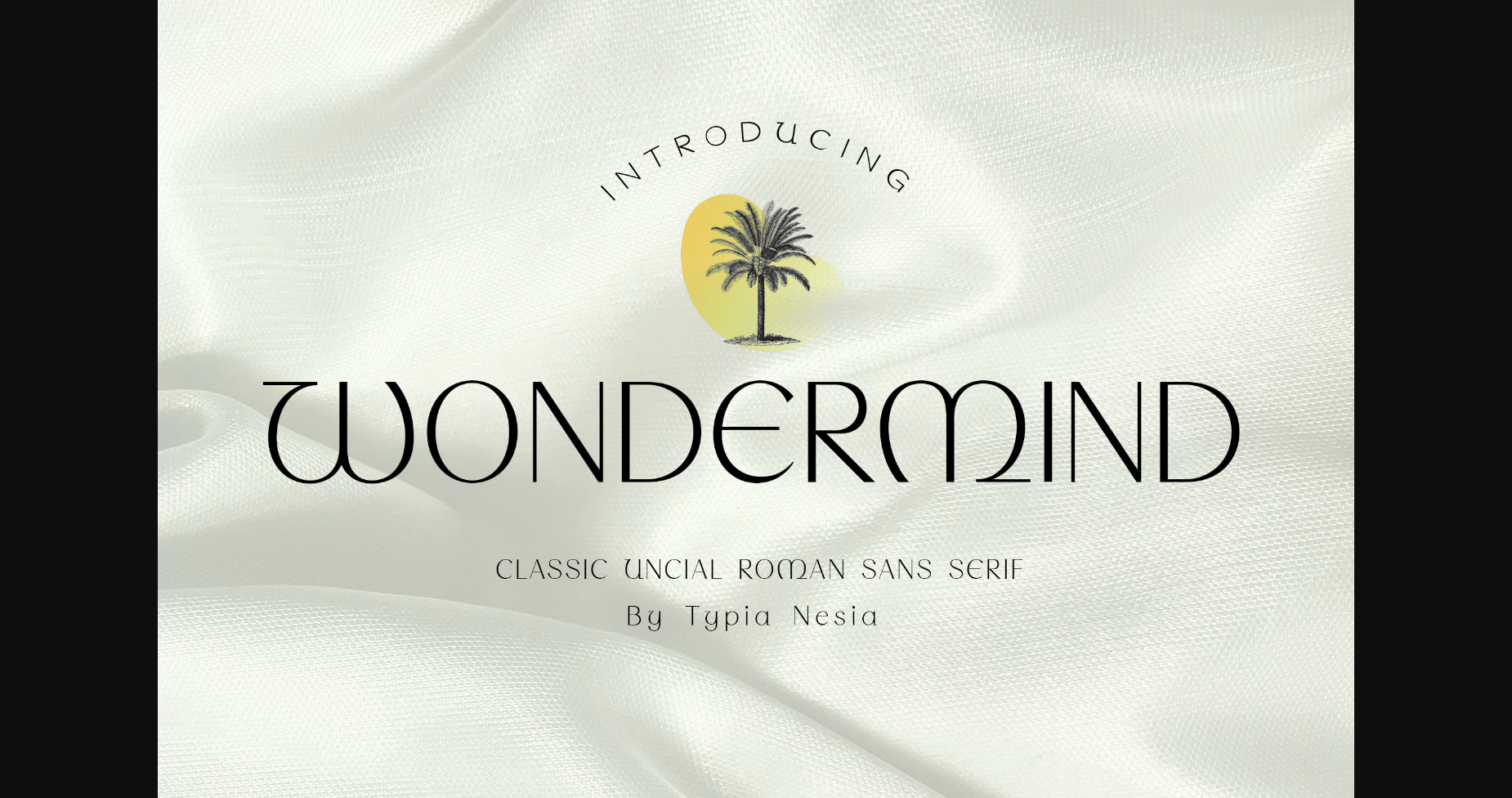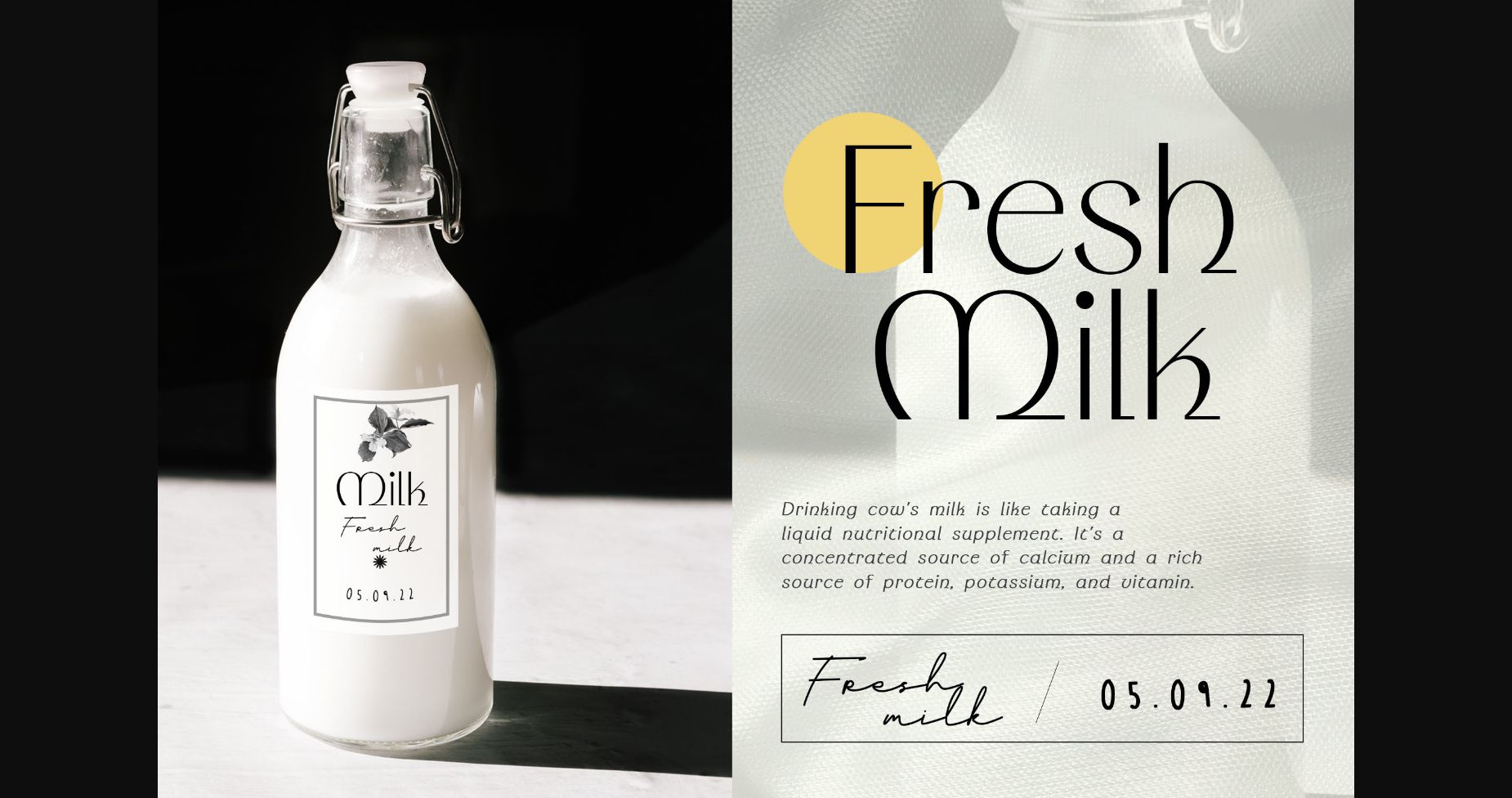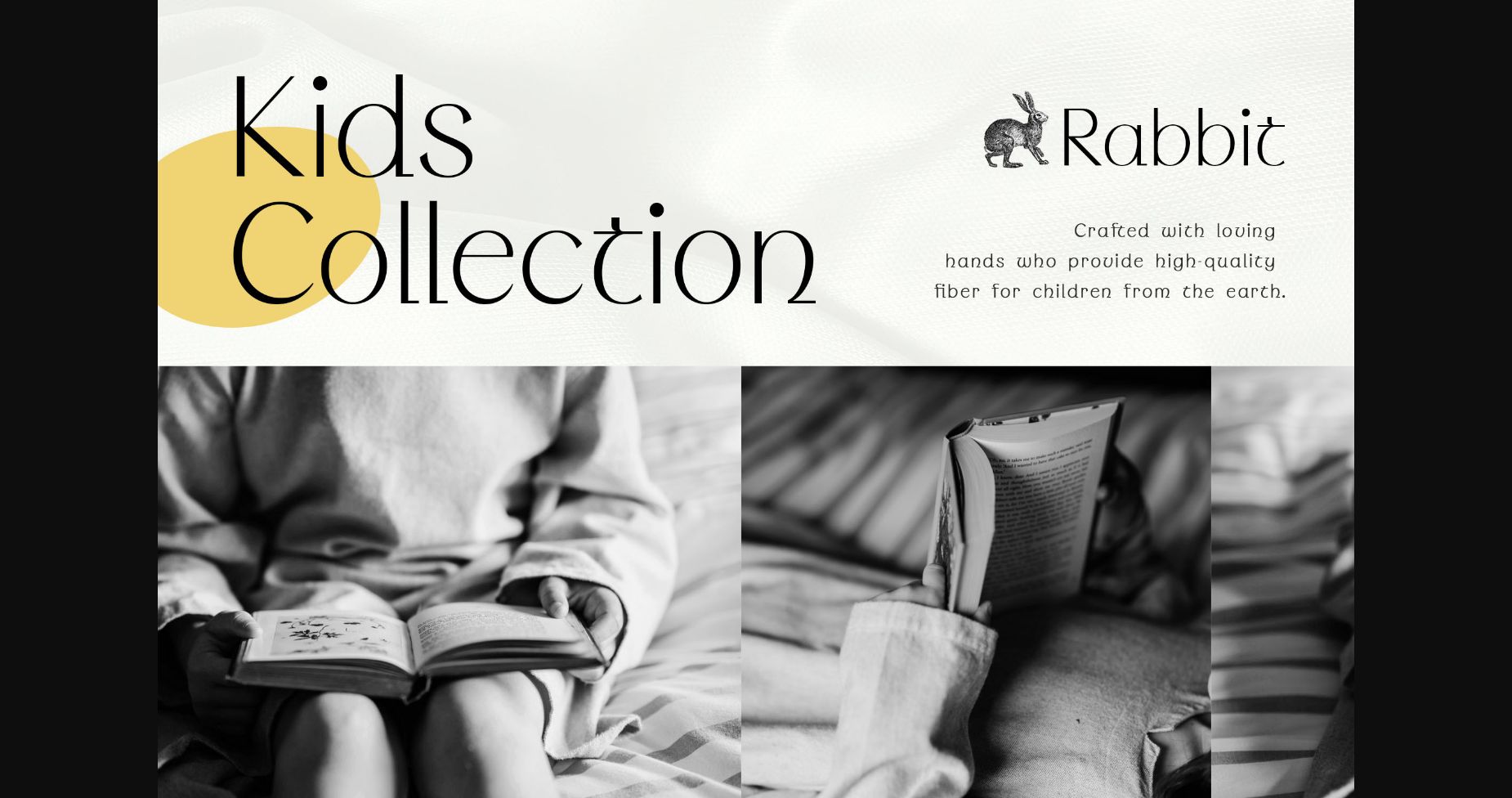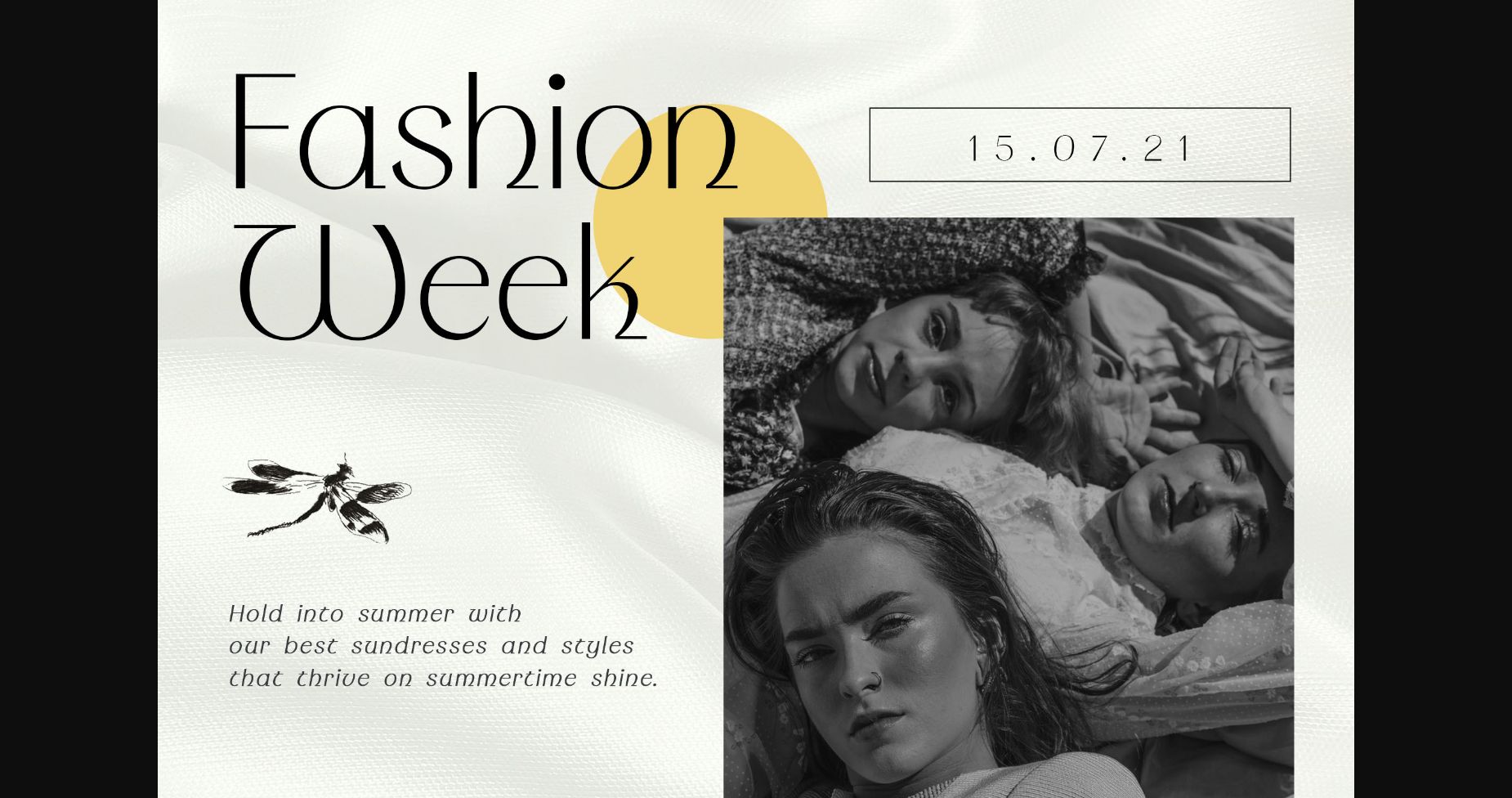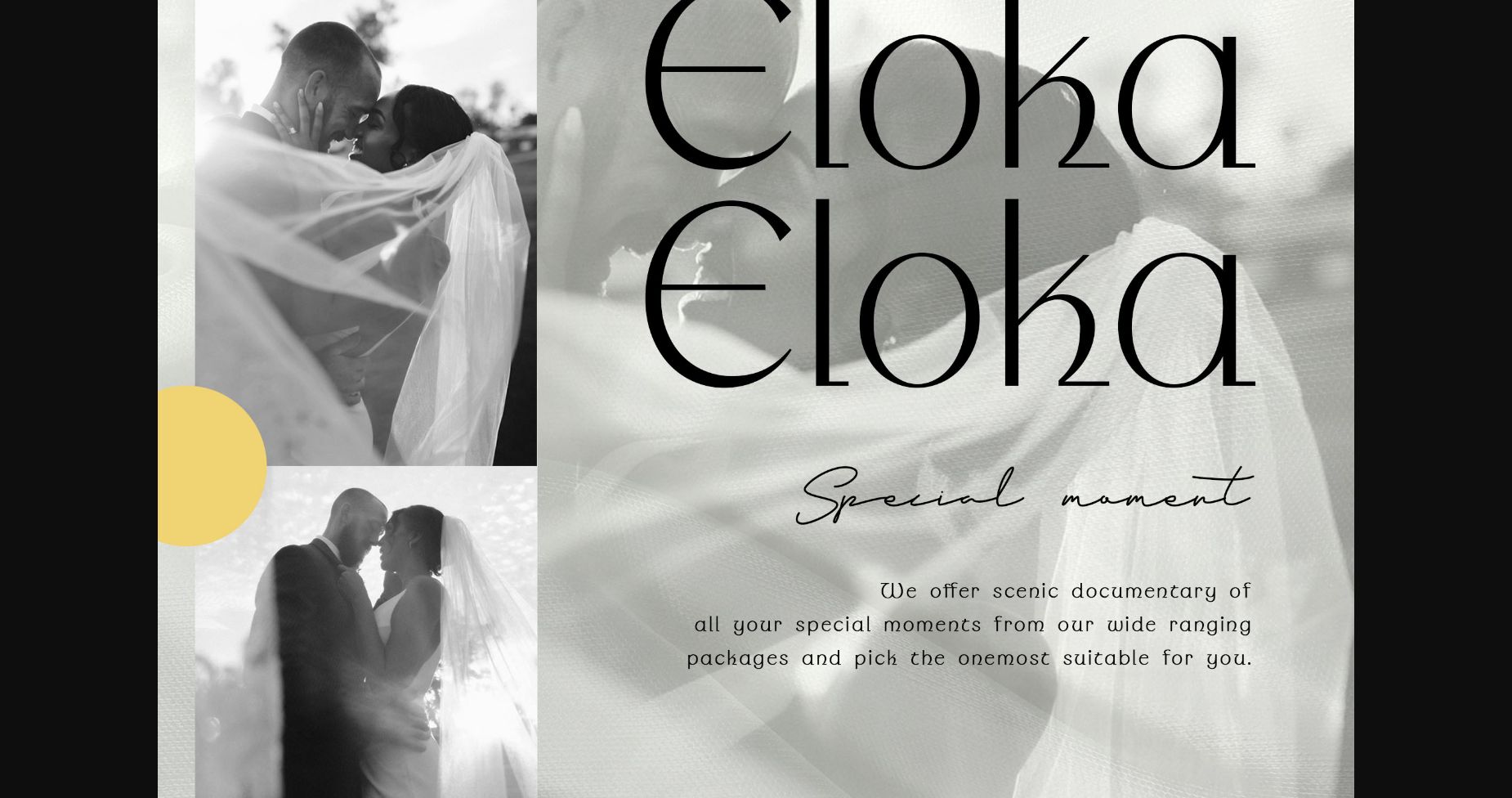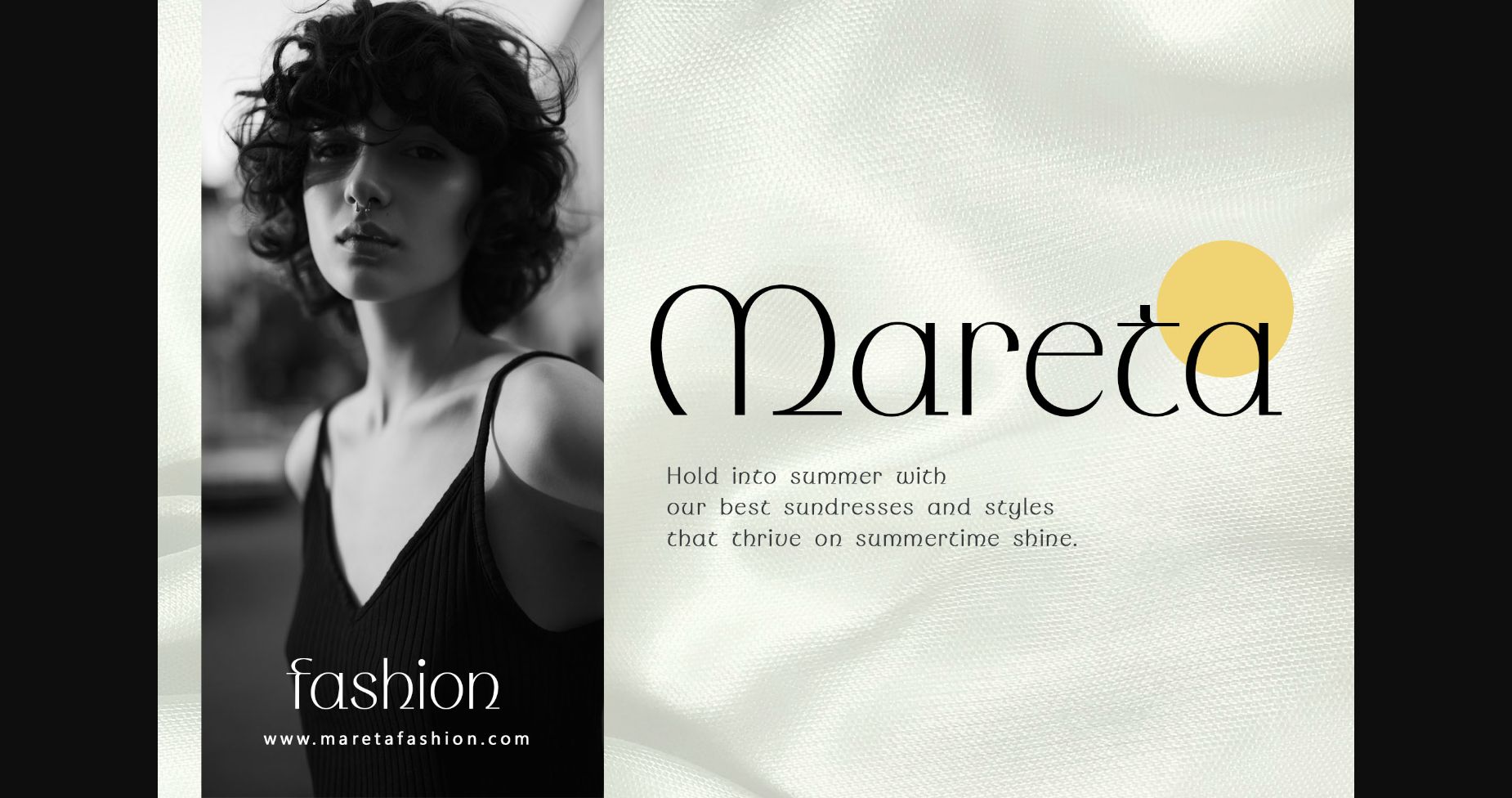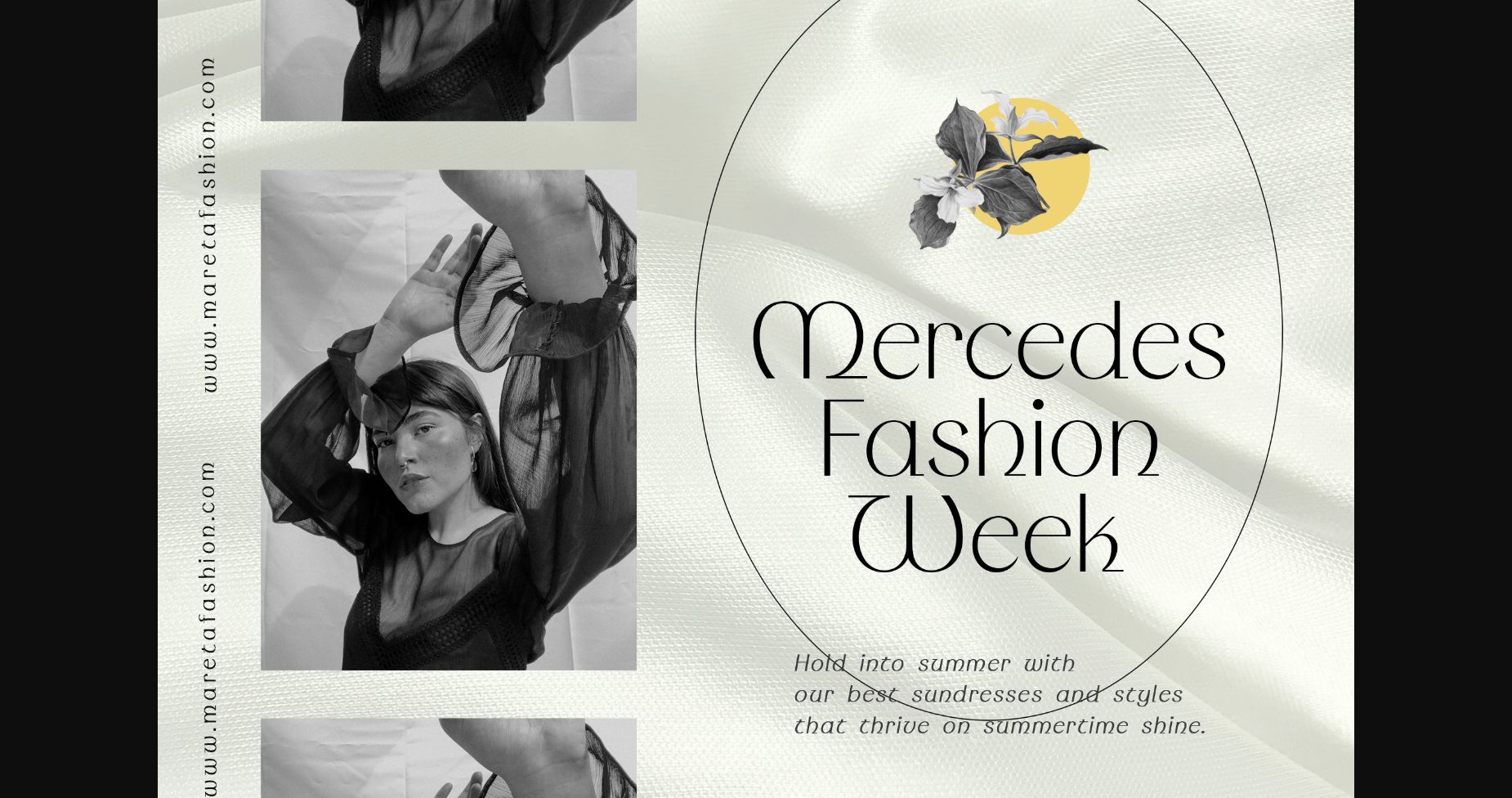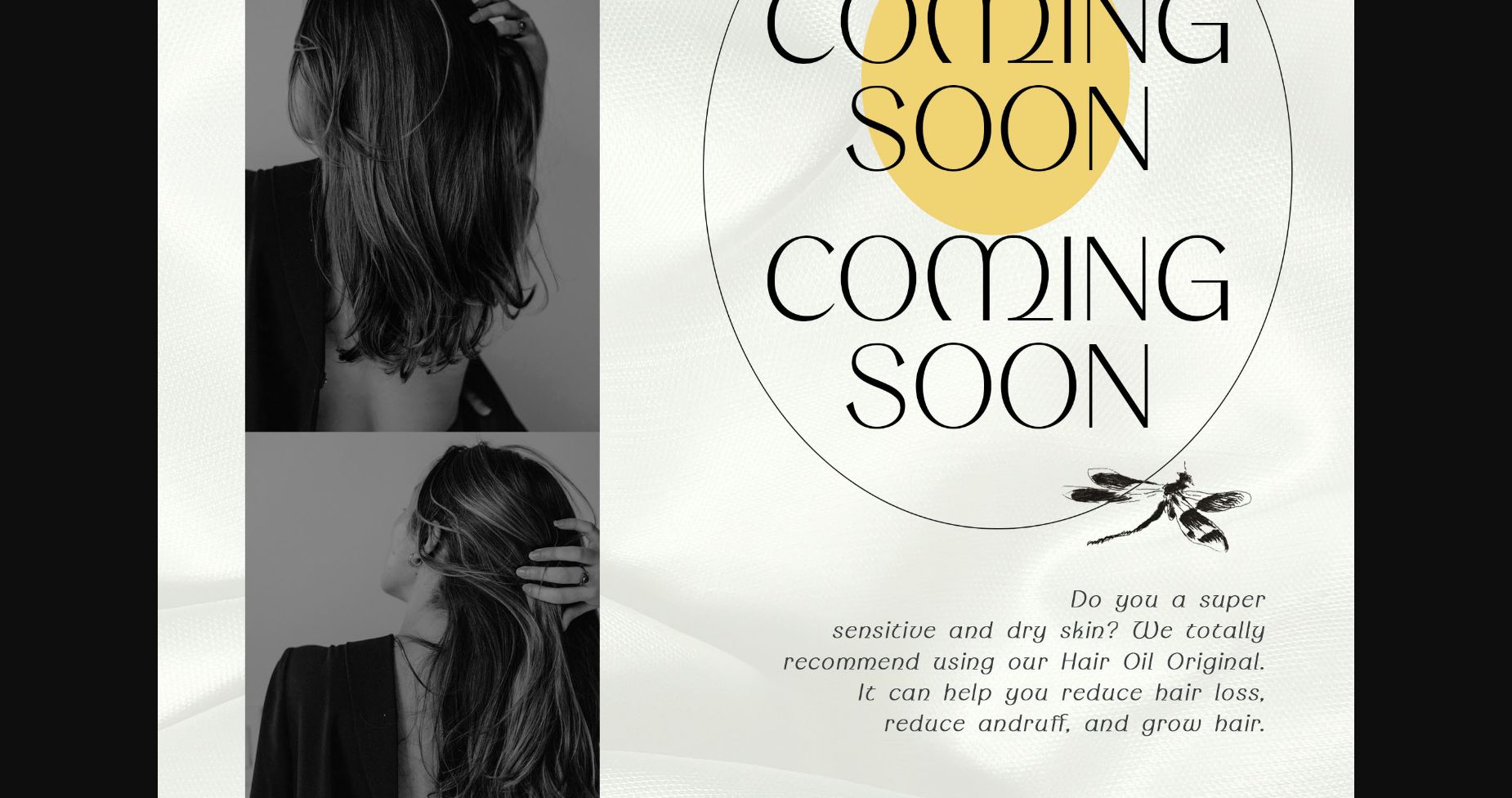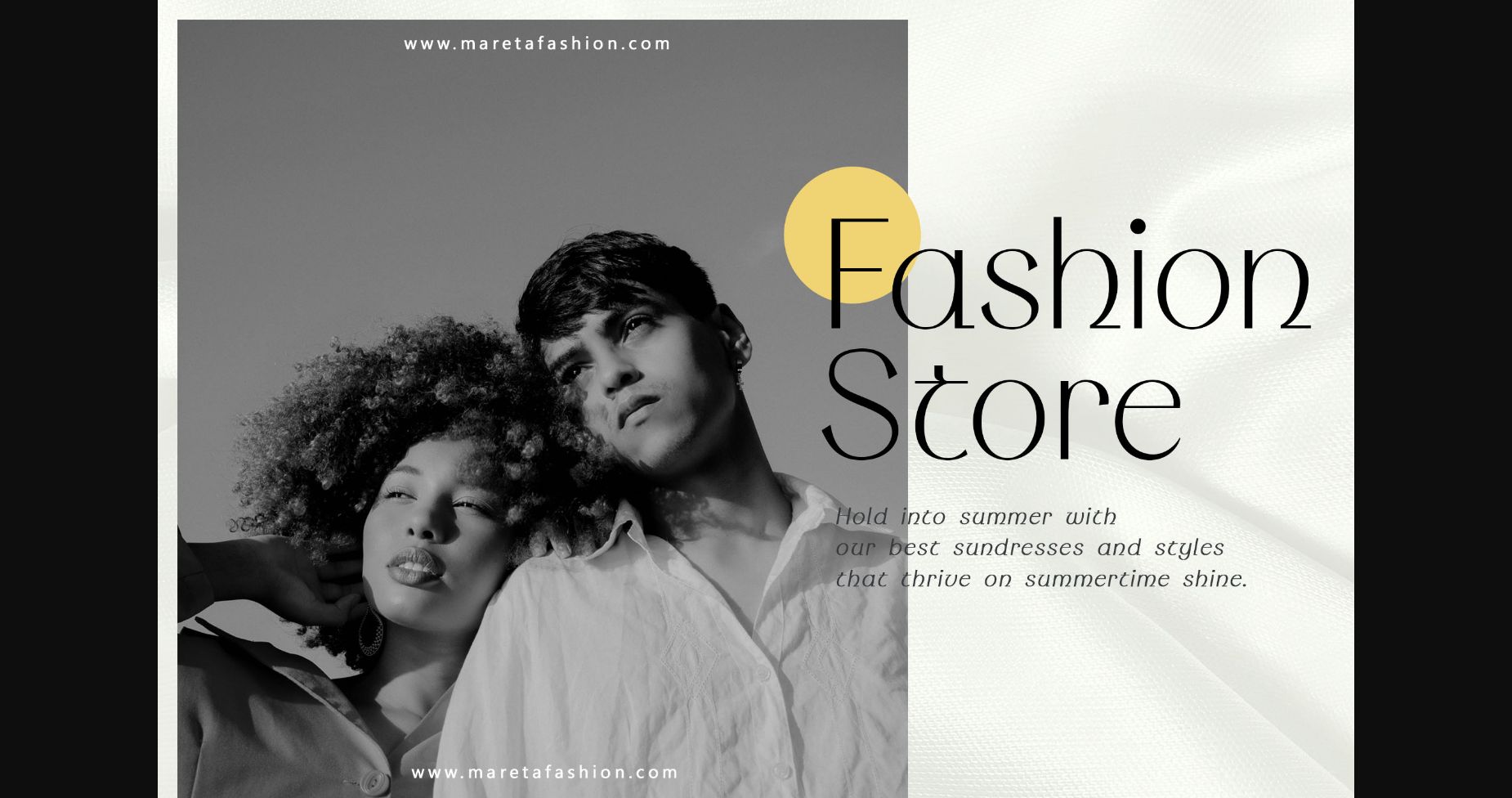
HomeSans Serif FontsWondermind Font Sans Serif Fonts Wondermind Font FacebookXPinterestWhatsApp 1 of 11 ... Wondermind Font Poster 2... Wondermind Font Poster 3... Wondermind Font Poster 4... Wondermind Font Poster 5... Wondermind Font Poster 6... Wondermind Font Poster 7... Wondermind Font Poster 8... Wondermind Font Poster 9... Wondermind Font Poster 10... Wondermind Font Poster 11... About Wondermind Font Wondermind is a thin lettered and delicate sans serif font. It has a classy, elegant and modern look that can be used for logos, branding, invitations, stationery, wedding designs, social media posts, and much more! DOWNLOAD NOW People also explored White Unicorn Font Weather Font Ribbon Candy Font Music Class Font Spring Time Font September Font Karmila Font Vegeman Font Vamous Font 332 0 TagsWondermind Font Previous articleArea Neu FontNext articleMilano Font LEAVE A REPLY Cancel reply Comment: Please enter your comment! Name:* Please enter your name here Email:* You have entered an incorrect email address! Please enter your email address here Website: Save my name, email, and website in this browser for the next time I comment. Personal Use Free The Royal Personal Use Free Read more about this font JVNE Smoothdron Personal Use Free Read more about this font Shelly Personal Use Free Read more about this font Gratisan Personal Use Free Read more about this font BLOG Using Fonts in Digital Marketing: Tips to Strengthen Your Brand Identity In the realm of digital marketing, every visual element plays a crucial role in shaping a brand's identity, and fonts are no exception. The... Top 7 Google Fonts Alternatives for Faster and Privacy-Friendly Web Design (2025) How to Install and Use Fonts on Windows, macOS, and Web Projects Free vs Paid Fonts: Why Investing in Premium Fonts Is Worth It